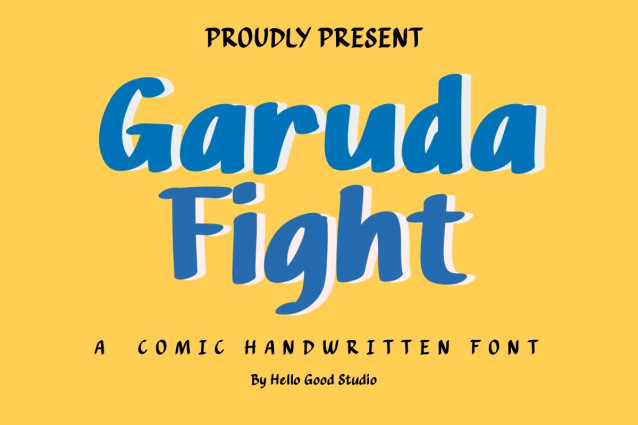
Garuda Fight Font
Garuda Fight Font a sweet and friendly handwritten font. Cute and fun, this font is ideal for writing wedding invitations, cards, or any other design that might need a fun touch!